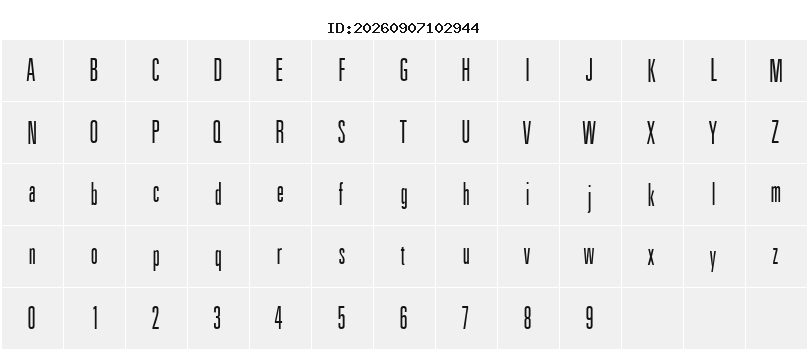
UnitusNarrowTwo DB Preview
• Font Name: UnitusNarrowTwo DB
• Full Font Name: UnitusNarrowTwo-Regular DB
About UnitusNarrowTwo DB.ttf
UnitusNarrowTwo DB.ttf is a modern, elegant sans-serif font designed for ultimate readability and visual harmony. Perfect for branding, headlines, web design, and print materials.